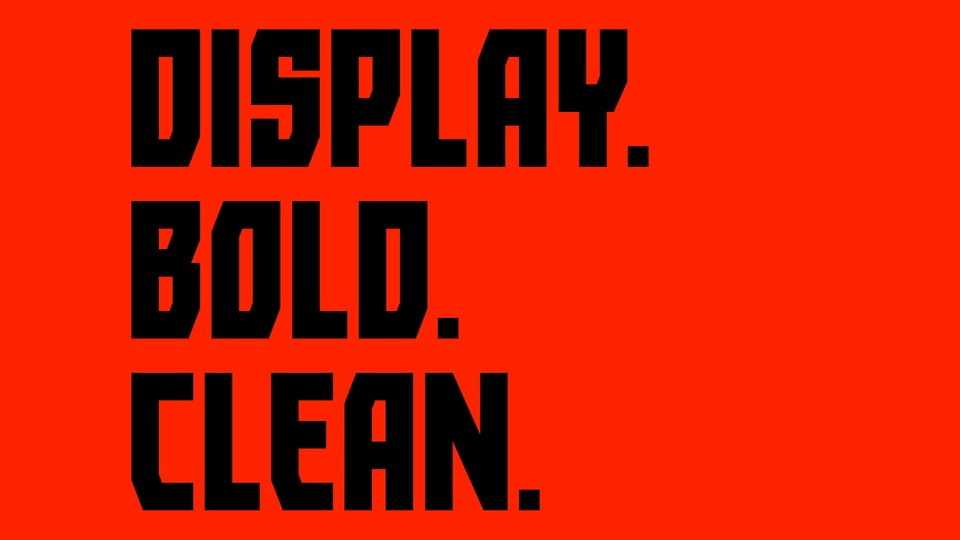
Download TK Sans font, a bold, strong, and blocky display typeface designed to channel the energy and determination of the sports world.
Designer: EszettZ Design